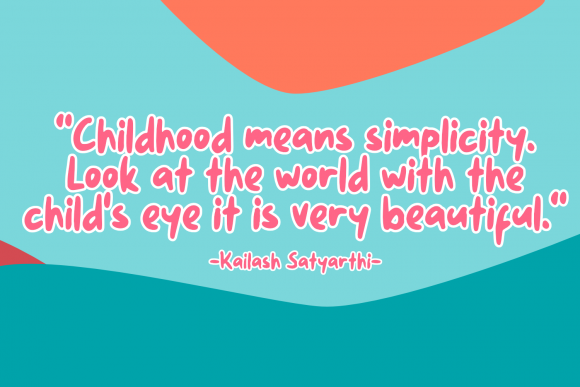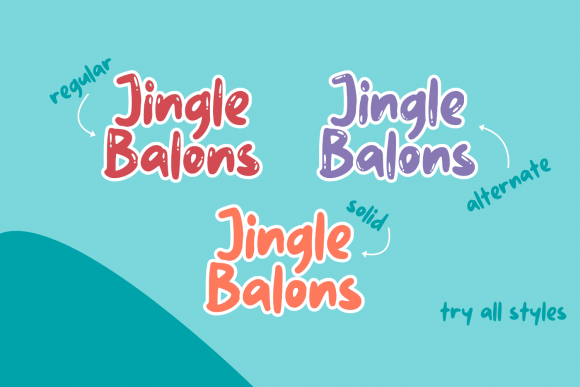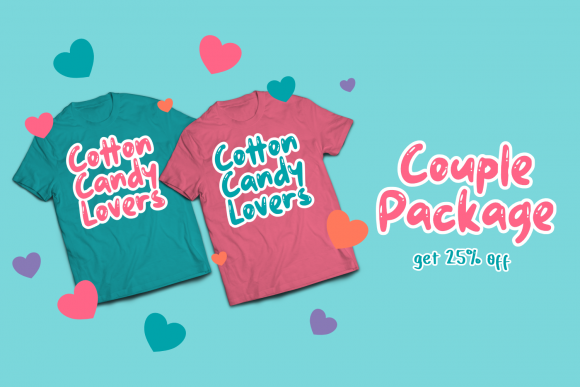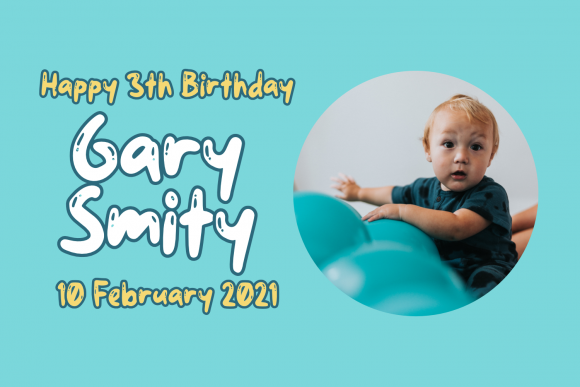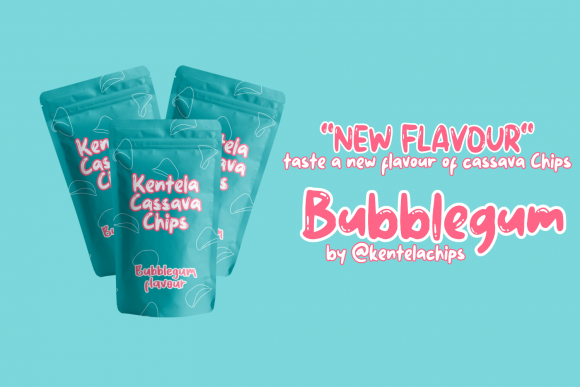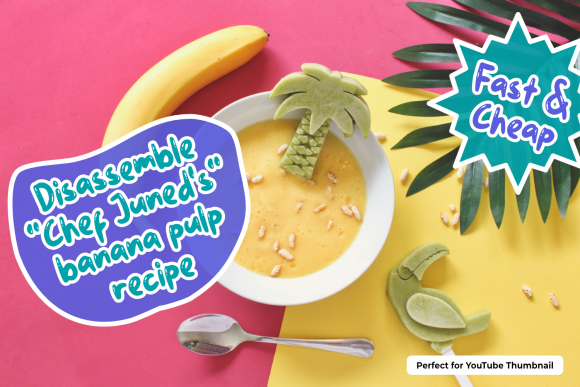
Introduction to Jingle Balons Font
Have you ever stared at a blank canvas, waiting for the perfect font to bring your creative project to life? It’s a moment we’ve all been there – the one where the right typography can make or break the entire design. For designers, finding the perfect font can be a challenge, but what if we told you there’s a font that’s not only trendy but also readable and down-to-earth? Say hello to the Jingle Balons Font, a cool and bubbly display font that’s sure to make your designs pop.
With its perfect balance of trendiness and versatility, the Jingle Balons Font is a valuable design resource for any creative project. Whether you’re working on a social media graphic, a logo, or a poster, this font is sure to add that extra oomph. Plus, with its transparent background option, you can easily customize it to fit your design needs. And the best part? It’s available for free download, making it a high-quality design resource that won’t break the bank.
Key Features of Jingle Balons Font
• Unique and playful design ideal for creative projects and festive occasions.
• Includes a transparent background for easy customization and integration with various design elements.
• Designed with a bold and eye-catching style, perfect for adding a pop of color and energy to your designs.
• Supports a wide range of languages and characters, ensuring versatility in its use across various creative projects.
Honest Review: Jingle Balons Font
I recently had the chance to work with the Jingle Balons Font, and I must say, it’s a delightful addition to any creative project. This font is perfect for designers looking for a playful and eye-catching typography to elevate their designs.
• ✨ High-quality design: The Jingle Balons Font is well-designed, with clear and crisp lines that make it perfect for digital use.
• ✨ Transparent background: This font features a transparent background, making it easy to layer and combine with other design elements.
• ⚠️ Limited character set: The Jingle Balons Font only includes a limited set of characters, which may be a drawback for designers who need a full range of characters.
• ⚠️ Not suitable for formal designs: Due to its playful nature, this font may not be the best choice for formal or professional designs.
Overall, the Jingle Balons Font is a great resource for designers who need a fun and eye-catching typography for their creative projects. While it has some limitations, its high-quality design and transparent background make it a valuable addition to any design resource collection.
The Jingle Balons Font is a versatile design resource that can be used in a variety of creative projects, including invitations, social media graphics, and presentations. Its high-quality design makes it perfect for free download and use in your next project.
To get the most out of the Jingle Balons Font, use it in conjunction with other design elements, such as images and shapes. Experiment with different font sizes and styles to add visual interest to your design. You can also use the font with a transparent background to create a unique and eye-catching effect.
Q: Is Jingle Balons Font a high-quality design resource?
Yes, the Jingle Balons Font is a high-quality design resource that is designed to meet the needs of professional designers. It features a unique and creative design that can add a touch of personality to your design project. With its high-quality design and transparent background, Jingle Balons Font is an excellent addition to any design resource library.